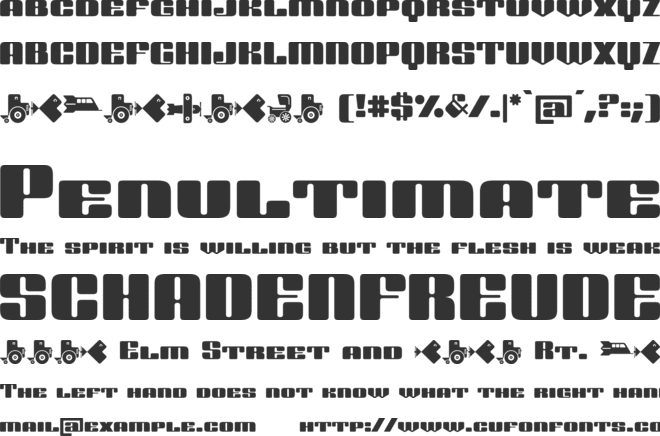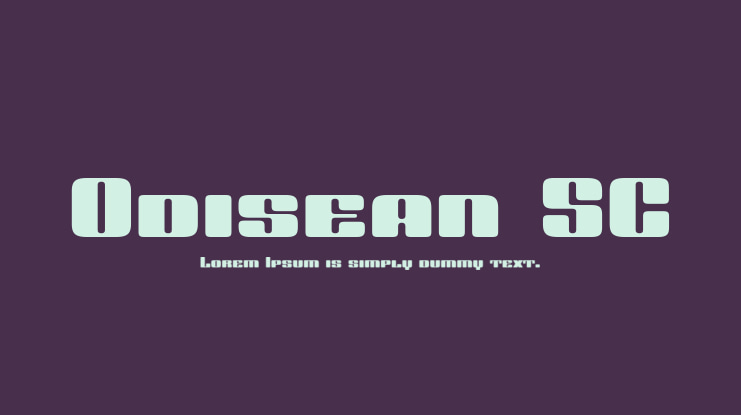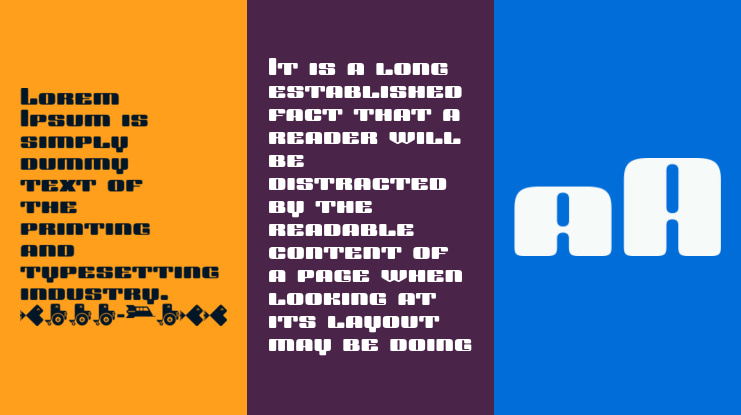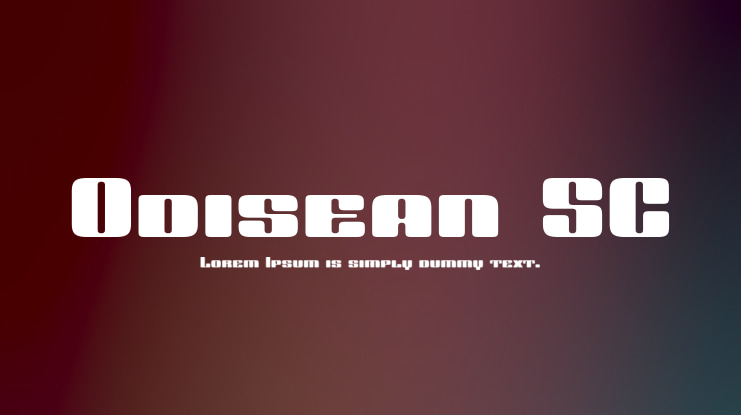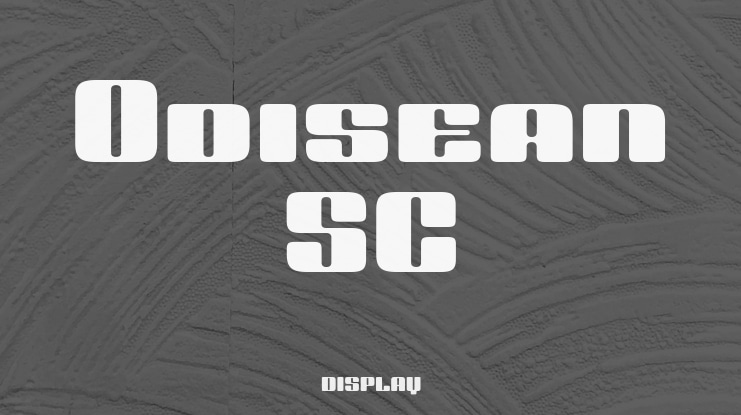
Odisean SC Font
The Odisean Small Caps font is specifically created for larger sizes and features a vintage design. It offers alternative lettering options and retro transportation icons.
- With its small capital letters, Odisean Small Caps font adds elegance and versatility to your designs.